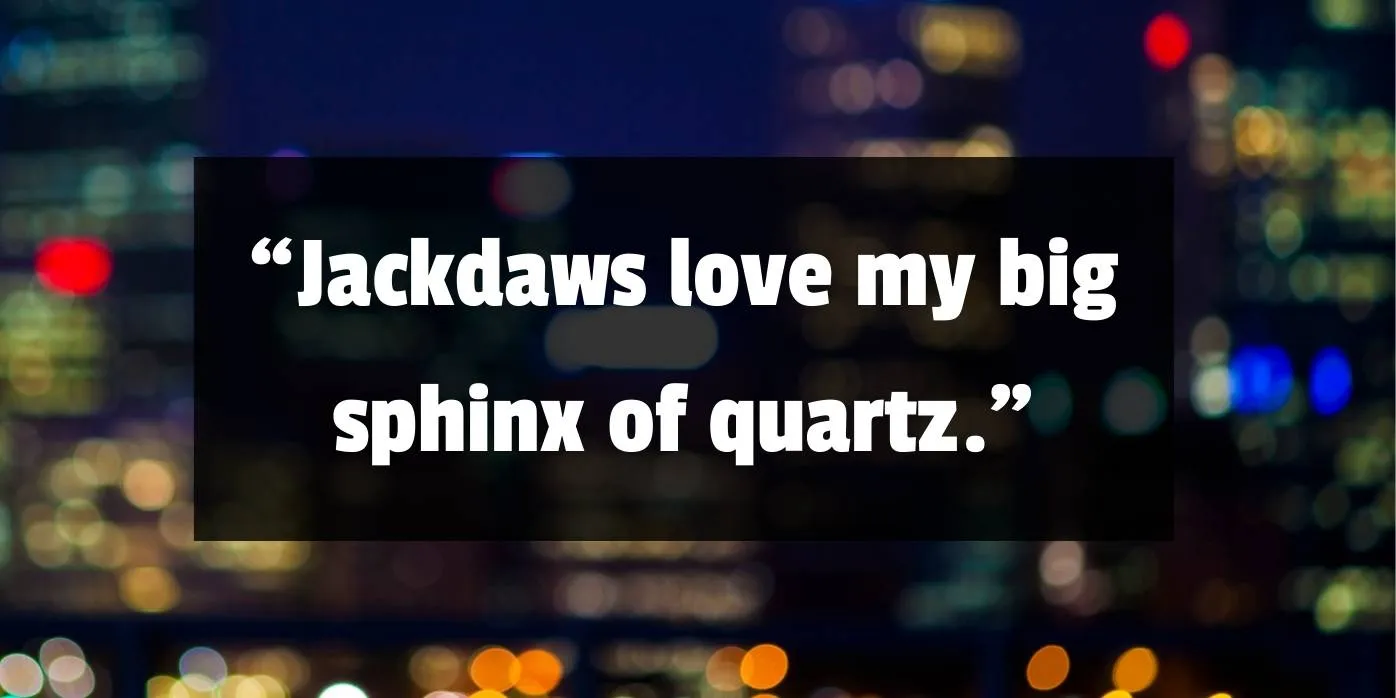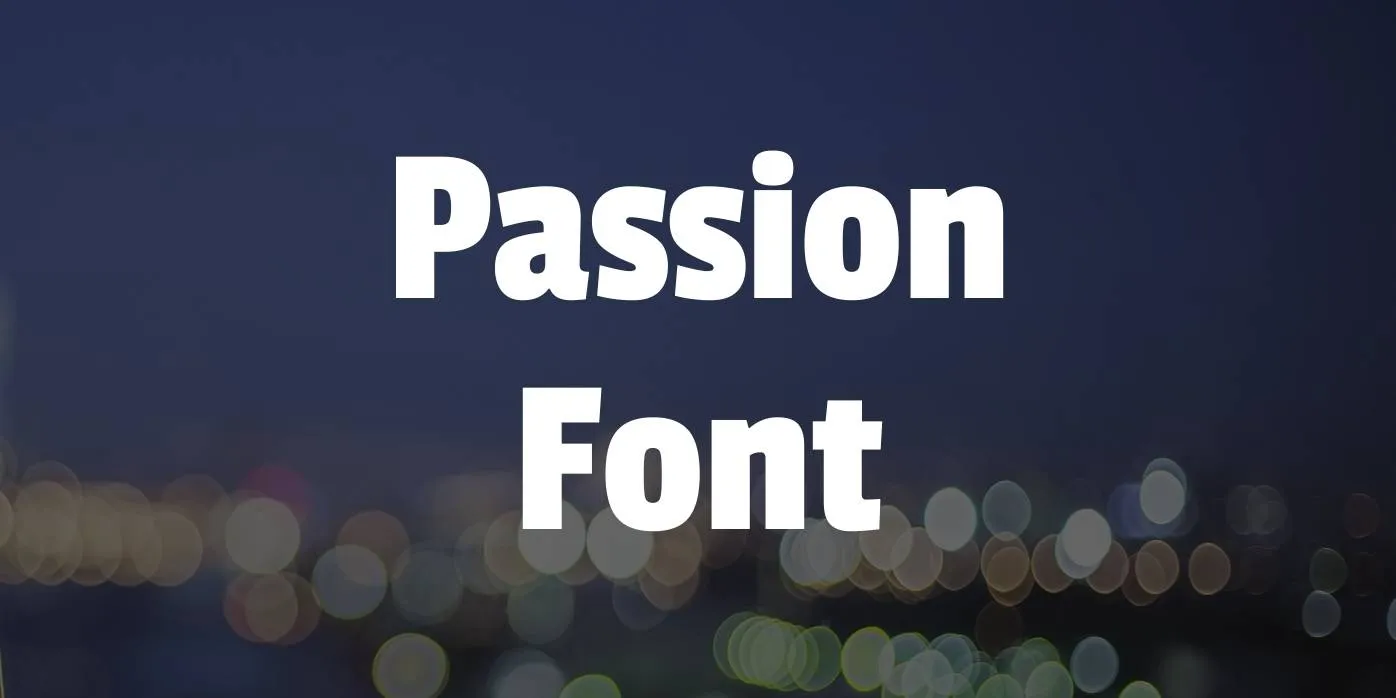
Passion Font
In this post, we present a new stylish typeface named Passion Font. It was developed and released by Fontstage. It belongs to the Sans Serif typeface. It is also included in Google fonts.
This Sans Serif Font has a stylish look and is perfect for headlines and titles. It will give your text an elegant touch. Passion font is available in two weights, regular and bold. It also supports multiple languages.